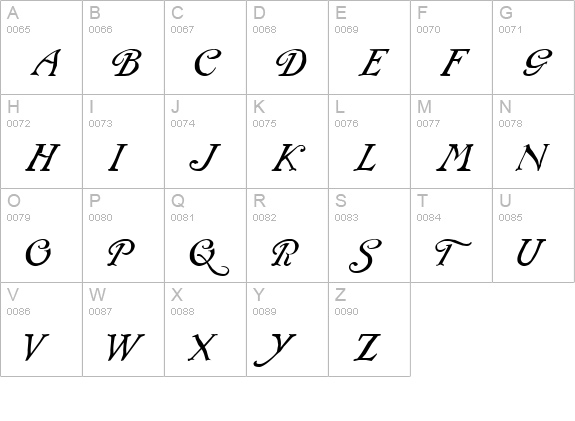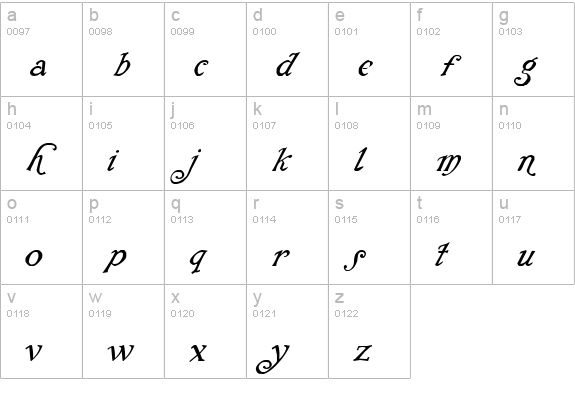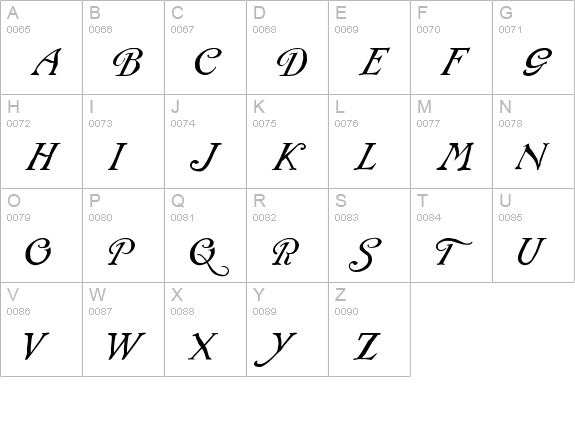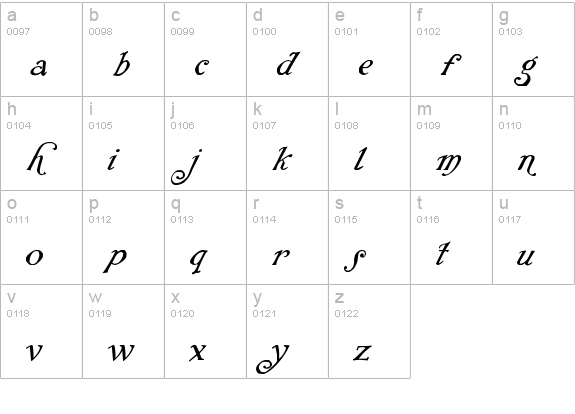
Rackham Italic Font Details
Rackham Italic is a distinctive, italic variant in the Rackham typeface family \xE2\x80\x94 well suited to design and typography projects.
Rackham Italic font is a stunning and elegant typeface that exudes a timeless charm. With its graceful curves and delicate strokes, this font captivates the eye and adds a touch of sophistication to any design project. This font is perfect for those who seek a harmonious blend of tradition and modernity. Its unique and intricate letterforms create a sense of refined artistry, making it an ideal choice for invitations, branding materials, book covers, and more. One of the most remarkable features of Rackham Italic font is that it is freely available to download at FontsMarket.com. This means that designers and enthusiasts alike can enjoy the beauty and versatility of this font without any cost. Whether you are a professional designer or a hobbyist, this font opens up new possibilities for your creative endeavors. With its versatile nature, Rackham Italic font can effortlessly adapt to various design styles and themes. Its timeless elegance makes it suitable for both formal and informal projects, adding a touch of class and sophistication to any composition. Whether you're designing a wedding invitation, a logo, or a magazine layout, Rackham Italic font is sure to make a lasting impression. Its impeccable attention to detail and graceful aesthetics elevate any design, helping you achieve a truly polished and professional look. So why wait? Unlock your creative potential and download Rackham Italic font for free at FontsMarket.com. With its exceptional beauty and versatility, this font is bound to become a valuable addition to your design toolkit.